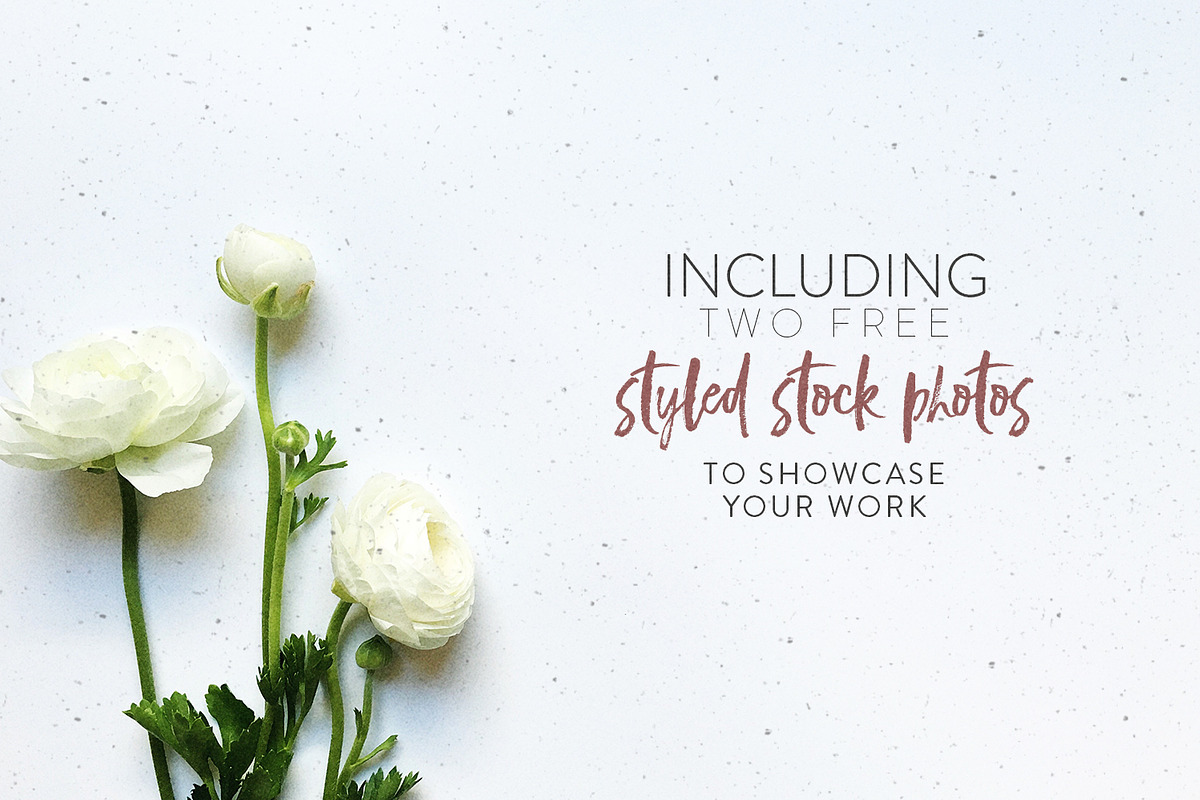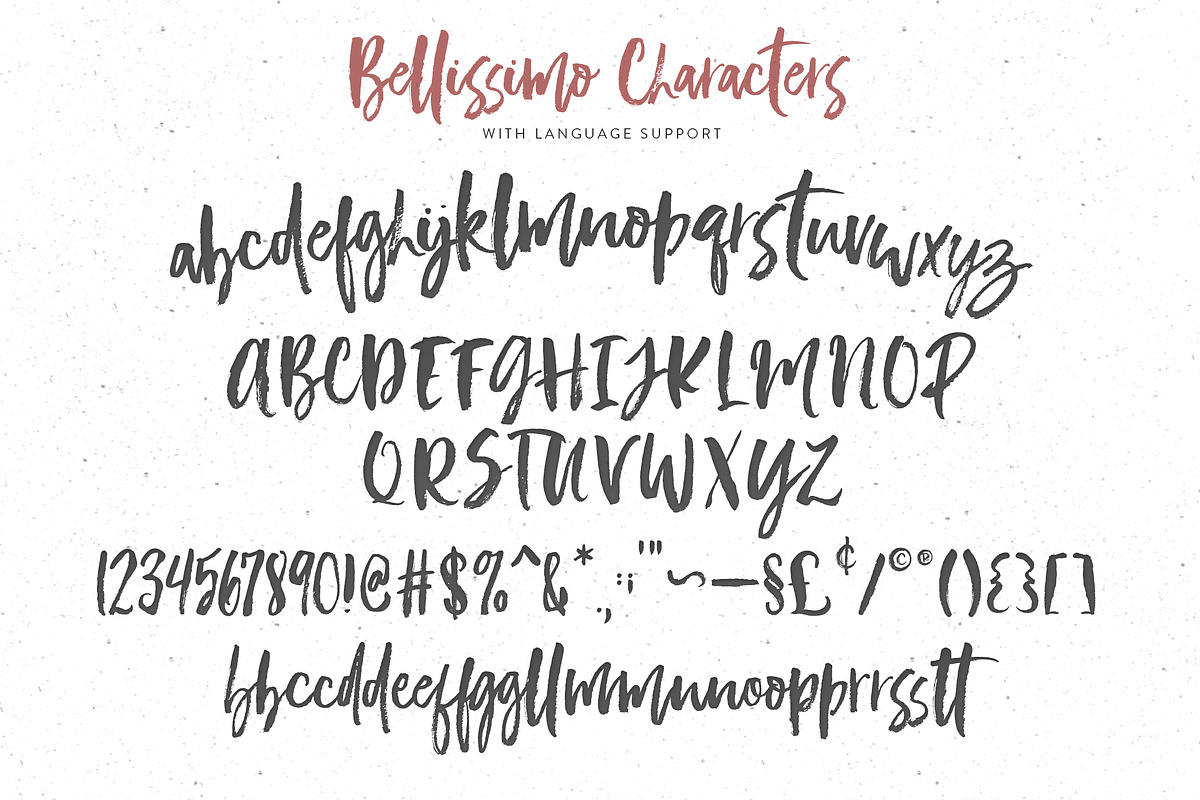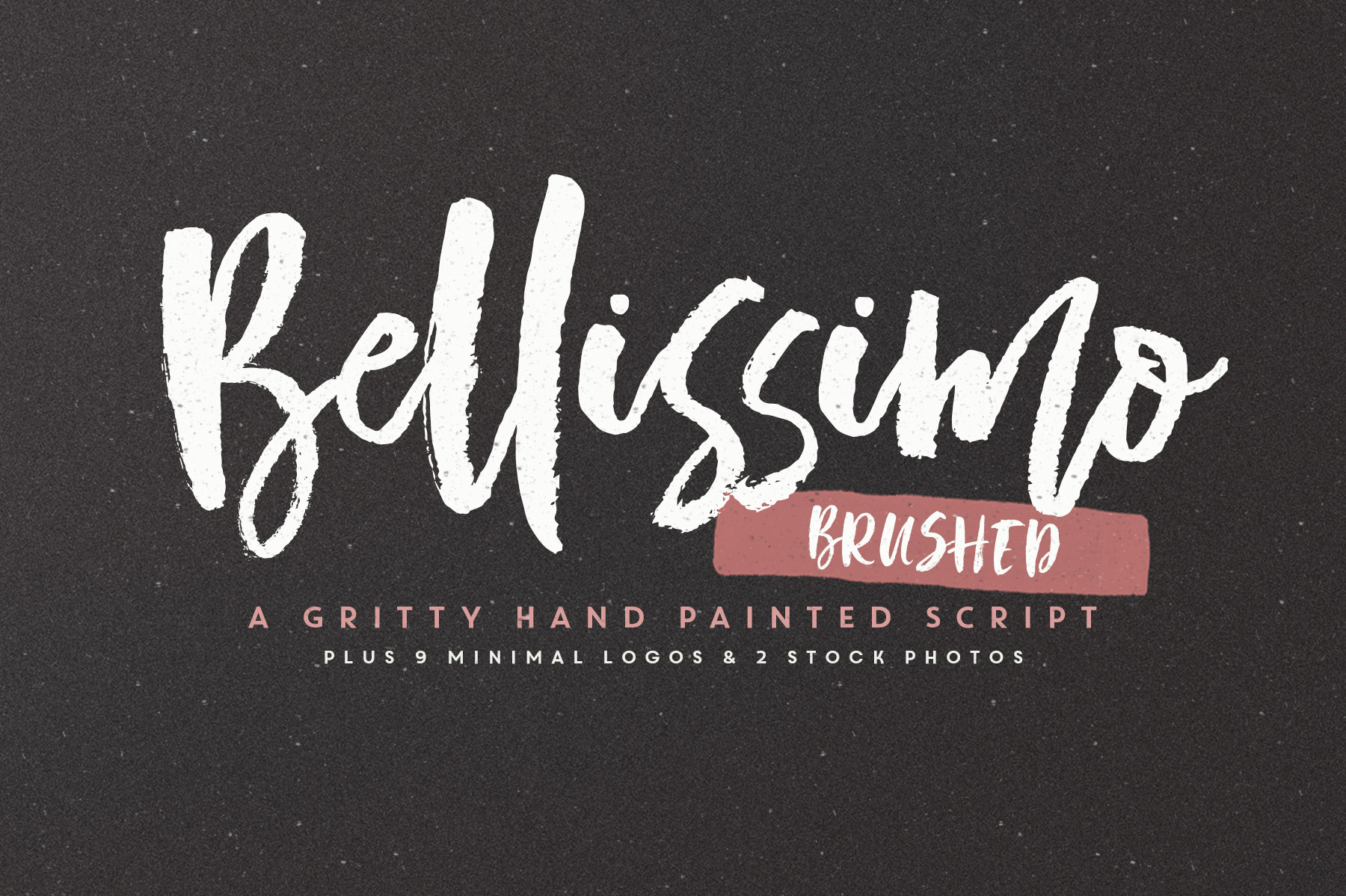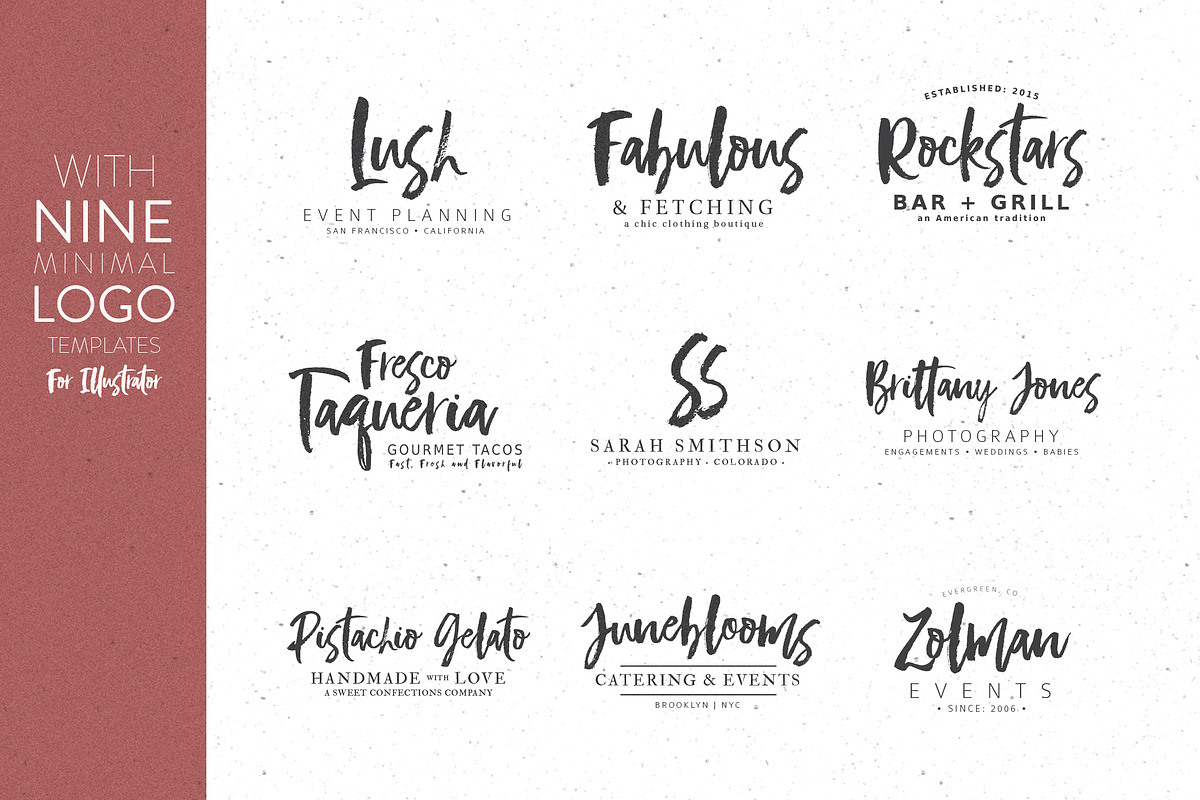
Bellissimo Typeface + Minimal Logos
Say Ciao to Bellissimo Brushed! A trendy, hand-brushed font, designed with branding in mind. Bellissimo looks gorgeous on logos, websites, invitations, greeting cards, magazines, business cards, packaging and more!
And since I've been totally in love with hand-lettered branding lately, I went ahead and whipped up some trendy, minimal logos for your creative pleasure. :)
Bellissimo Supports: English, Catalan, Croatian, Danish, Dutch, Estonian, Filipino, Finnish, French, West Frisian, German, Hungarian, Icelandic, Irish, Italian, Norwegian, Portuguese, Serbian, Bosnian, Slovenian, Spanish, Swedish, Albanian, Turkish and Welsh...and probably some others that I forgot, so don't forget to test your characters in the field below. :)